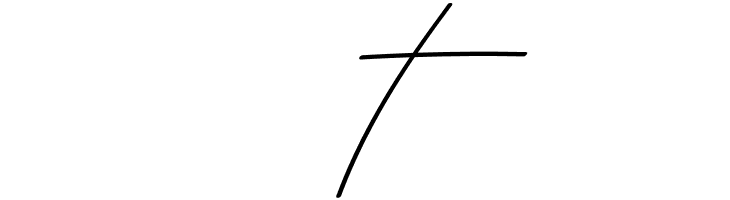
Expressive, loose handwritten script with thin, flowing lines.
Thin, elegant handwritten script with connected, flowing letters.
Expressive handwritten script with elongated, dynamic strokes.